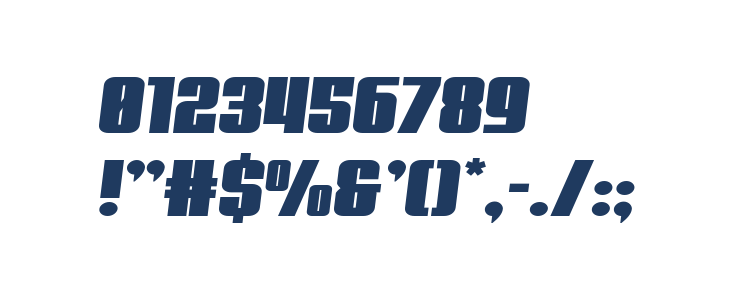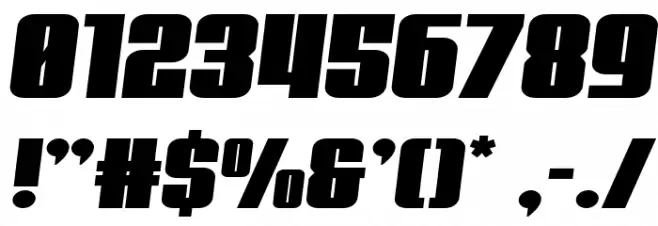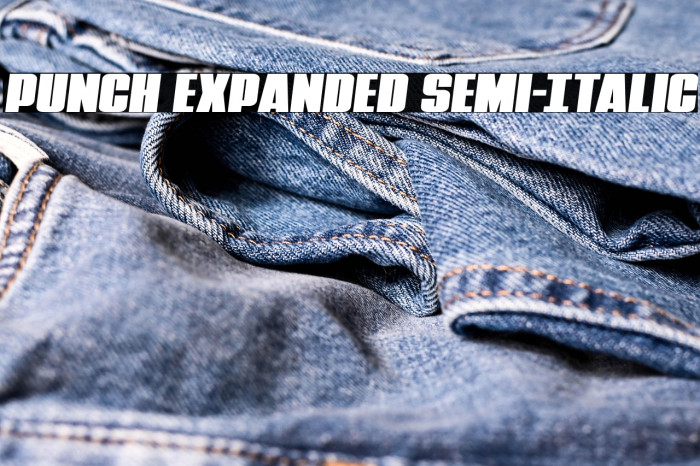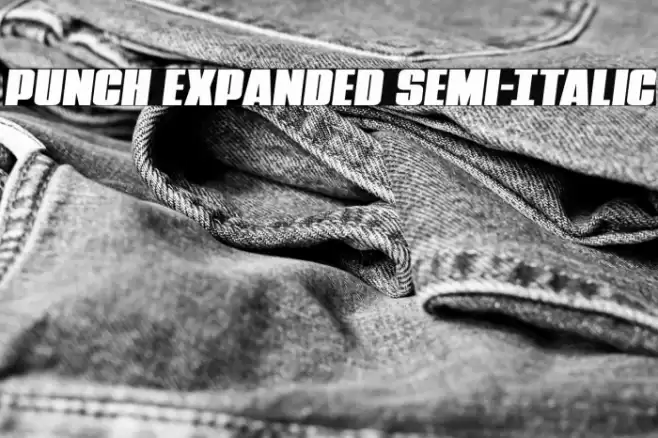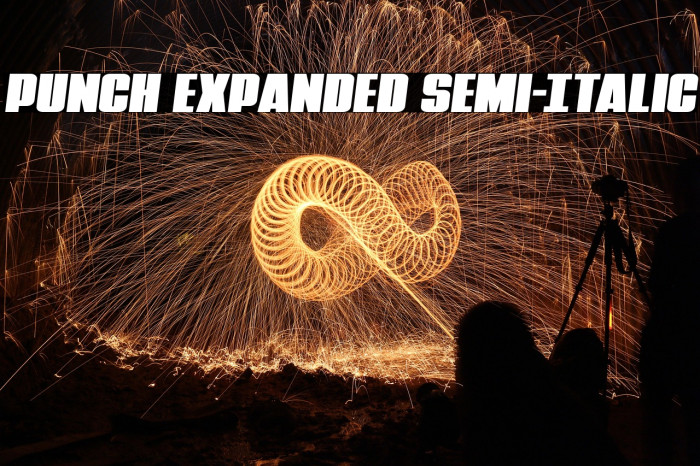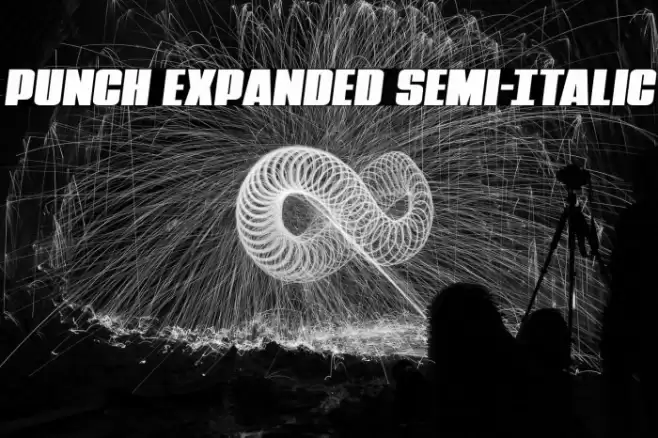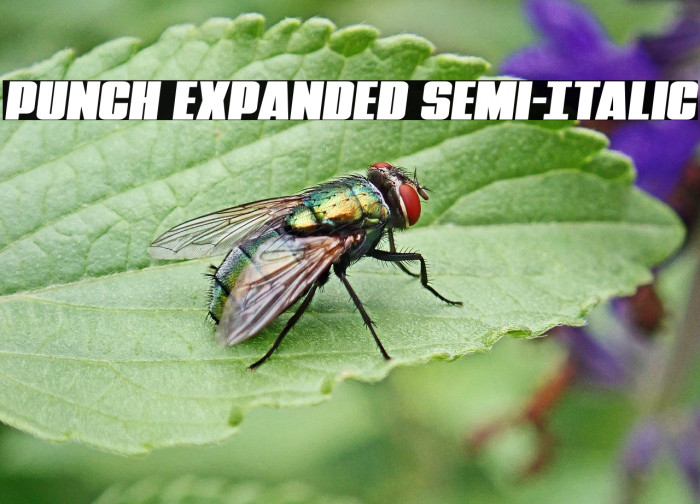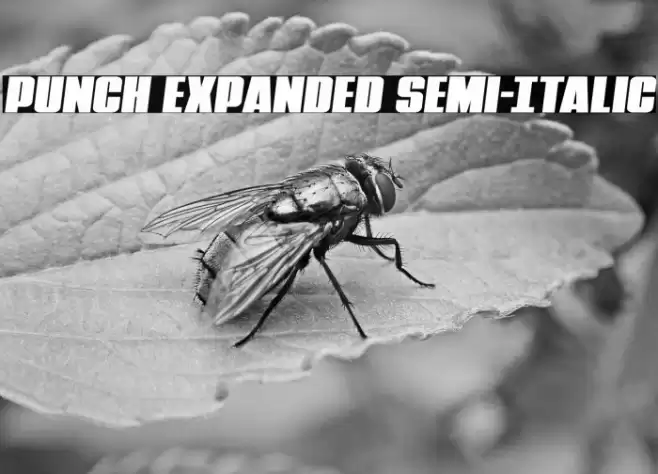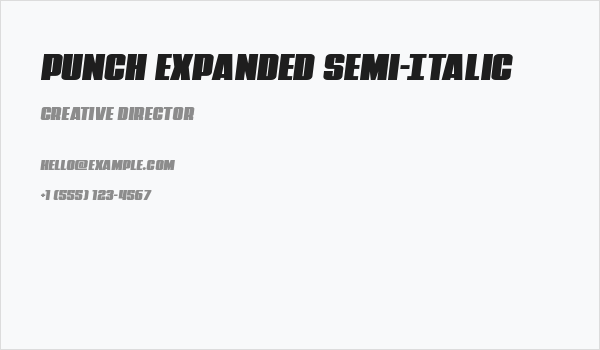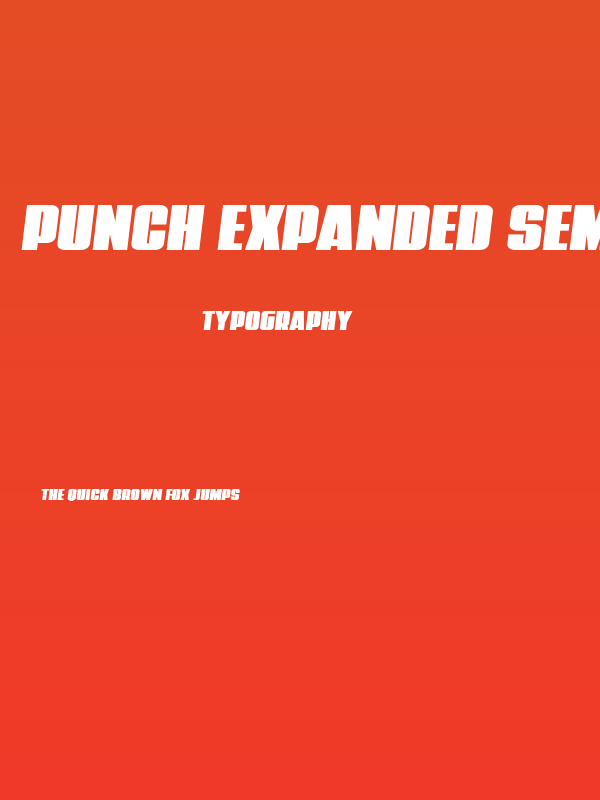
Punch Expanded Semi-Italic Font
Punch Expanded Semi-Italic Description
This font features a bold and impactful design with a semi-italic slant, giving it a dynamic and energetic appearance. The characters are expanded, providing a wide stance that enhances readability and presence. The strokes are thick and consistent, contributing to a strong visual weight. This style is particularly suited for making a statement, with its boldness and slight italicization adding a sense of movement and urgency. The spacing between characters is tight, ensuring a cohesive and compact look. The font's overall style is modern and assertive, making it ideal for attention-grabbing headlines and titles.
| Proposed Projects | Ideal for sports branding, dynamic posters, impactful headlines, and modern advertising campaigns. |